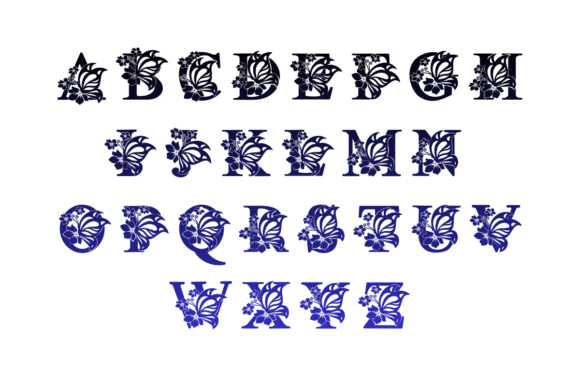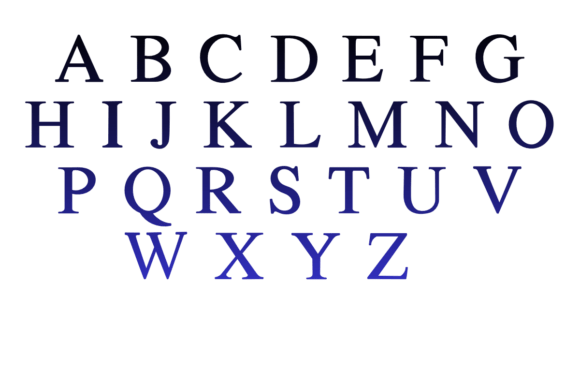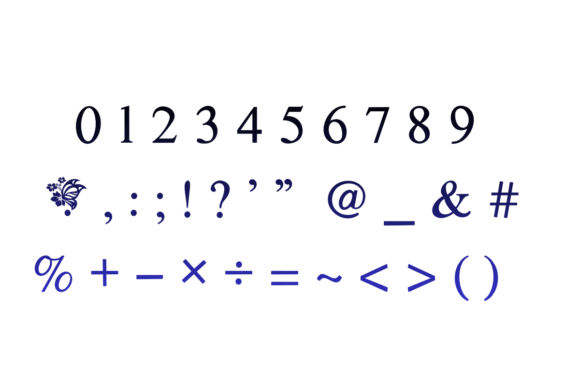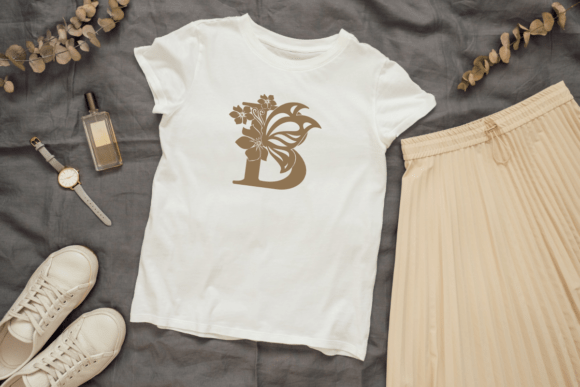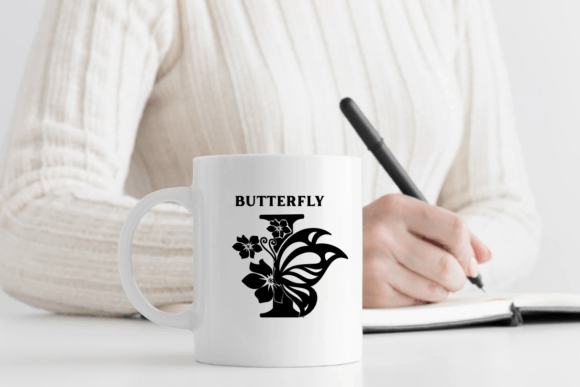
The Magical World of Butterfly Flower Monogram Font
I’ll never forget the moment I stumbled upon the perfect font for a client’s wedding stationery project. I had been searching for what felt like an eternity, trying out font after font, but nothing seemed quite right. That was until I discovered the enchanting Butterfly Flower Monogram Font. It’s a game-changer for any designer, crafter, or creative hobbyist looking to add a touch of elegance and whimsy to their projects.
I’ve had the pleasure of working with Butterfly Flower Monogram Font on several projects, and here’s my honest review:
- ✨ Elegant and decorative: Each letter is transformed into a stunning piece of art, adorned with floral elements and intricate butterfly wings.
- ✅ Perfect for luxurious branding: This font radiates beauty, delicacy, and charm, making it ideal for high-end branding, monogram logos, and wedding stationery.
- ✅ Feminine and sophisticated: The font adds a touch of magic and sophistication to any project, from custom crafts to packaging design.
While Butterfly Flower Monogram Font is a beautiful addition to any project, there are a few things to consider:
- ⚠️ Legibility at smaller sizes: As with many decorative fonts, legibility can be an issue at smaller sizes. It’s best used for headlines, titles, or monogram designs.
- 🤔 Glyph limitations: While the font has a range of beautiful glyphs, it may not have every character or symbol you need. Be sure to check the font’s capabilities before committing to a project.
The Story Behind Butterfly Flower Monogram Font
The story goes that the creator of Butterfly Flower Monogram Font was inspired by the delicate beauty of butterflies and flowers. This font is a labor of love, designed to bring a touch of magic and sophistication to any project. While the true story may be fictional, the font’s enchanting beauty is very real.